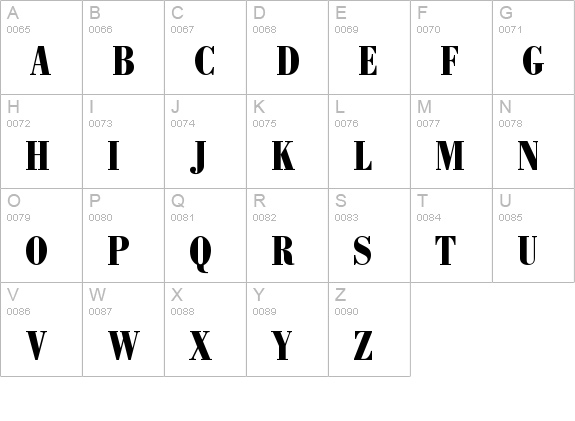
Bodoni BE Bold Condensed Font Details
Bodoni BE Bold Condensed is a strong, high-contrast, condensed-width variant in the Bodoni typeface family \xE2\x80\x94 well suited to headlines, attention-grabbing titles, and strong calls-to-action.
Bodoni BE Bold Condensed font exudes a sense of modern elegance and sophistication, making it a perfect choice for projects that require a bold and impactful touch. The clean lines, sharp edges, and condensed design of this typeface make it ideal for headlines, posters, and branding materials that demand attention. With its striking appearance and timeless appeal, Bodoni BE Bold Condensed font commands authority and professionalism. Its bold weight creates a strong visual presence, while the condensed style allows for efficient use of space without compromising on readability. This versatile font is a must-have for designers looking to make a statement with their typography. Whether you are working on editorial layouts, advertising campaigns, or logo designs, Bodoni BE Bold Condensed font will help you stand out from the crowd and leave a lasting impression. Best of all, this exceptional font is available for free download at FontsMarket.com, making it easily accessible for designers and creatives looking to add a touch of sophistication to their projects without breaking the bank. Don't miss out on the opportunity to elevate your designs with the timeless beauty of Bodoni BE Bold Condensed font.